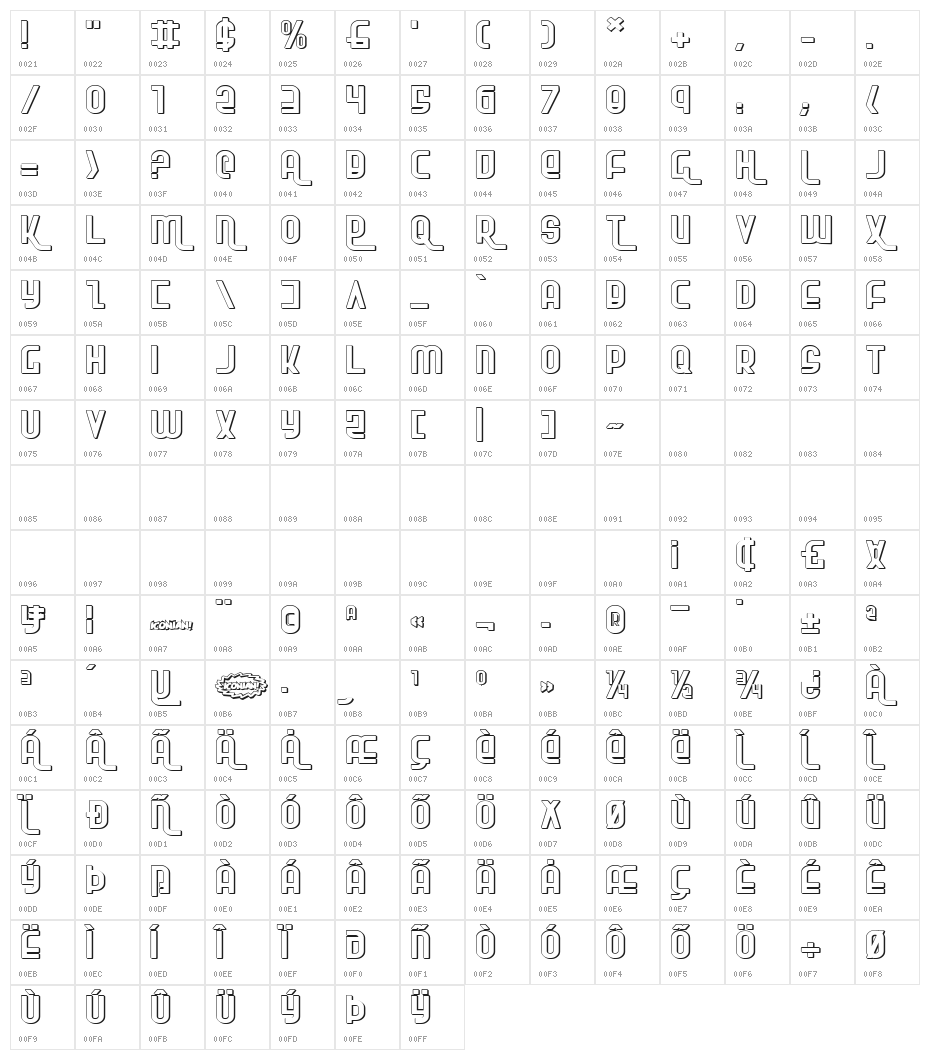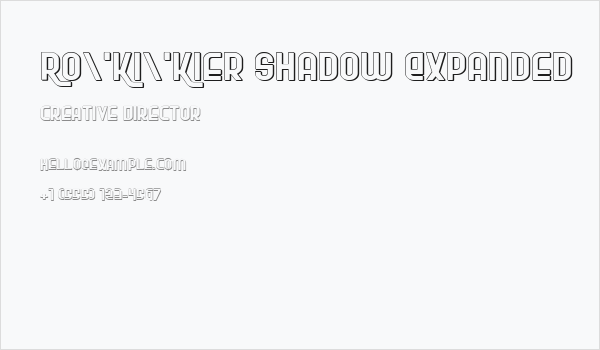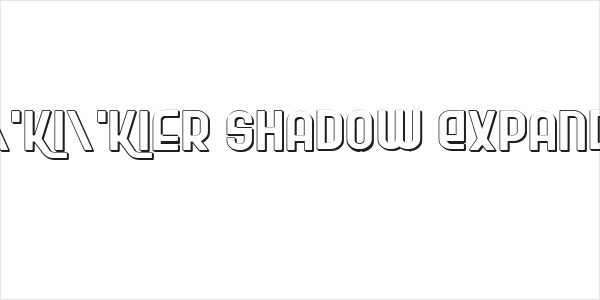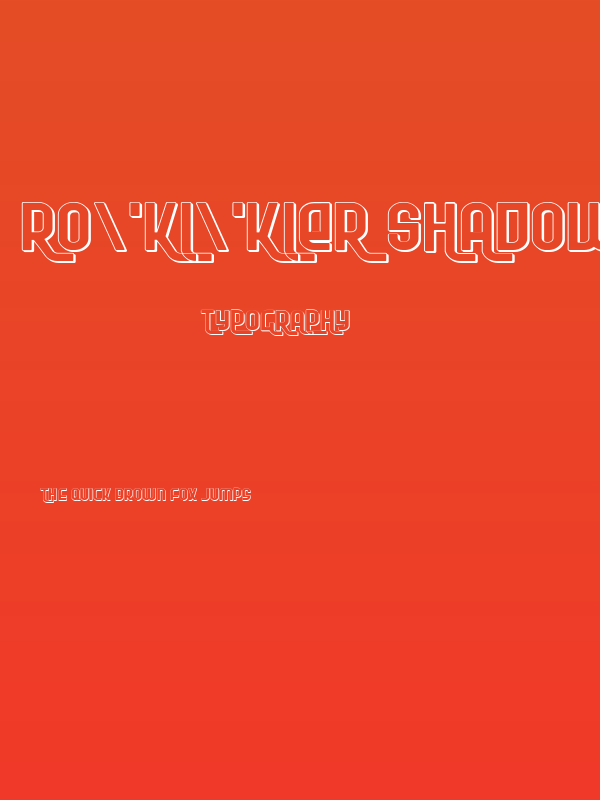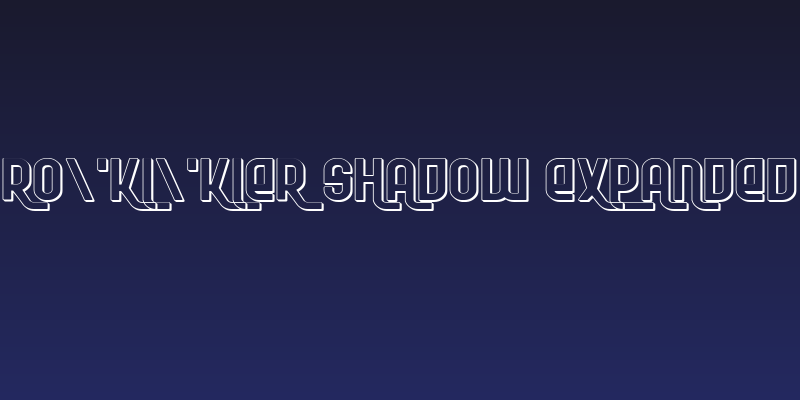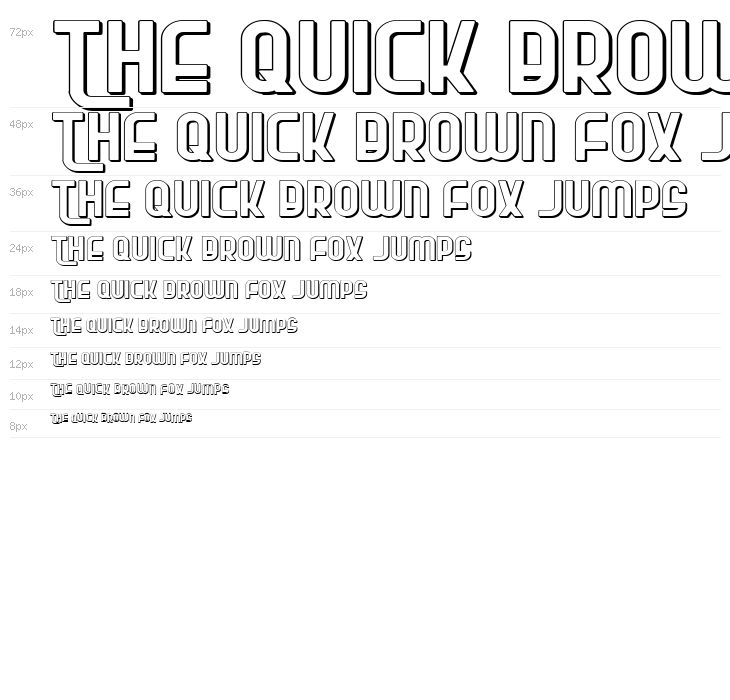
Ro'Ki'Kier Shadow Expanded Font
Ro'Ki'Kier Shadow Expanded Description
This font features a bold, shadowed design with an expanded width, giving it a striking and modern appearance. The characters are outlined, creating a three-dimensional effect that adds depth and visual interest. The uppercase and lowercase letters maintain a consistent style, with geometric shapes and clean lines. The numerals and special characters follow the same design principles, ensuring uniformity across all glyphs. This font's unique style makes it ideal for projects that require a strong visual impact.
| Proposed Projects | Ideal for posters, headlines, logos, and any design requiring a bold statement. |